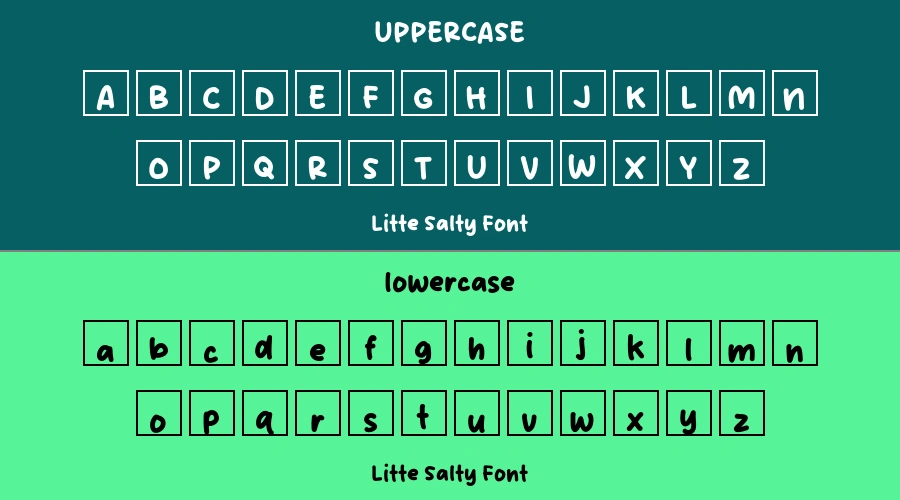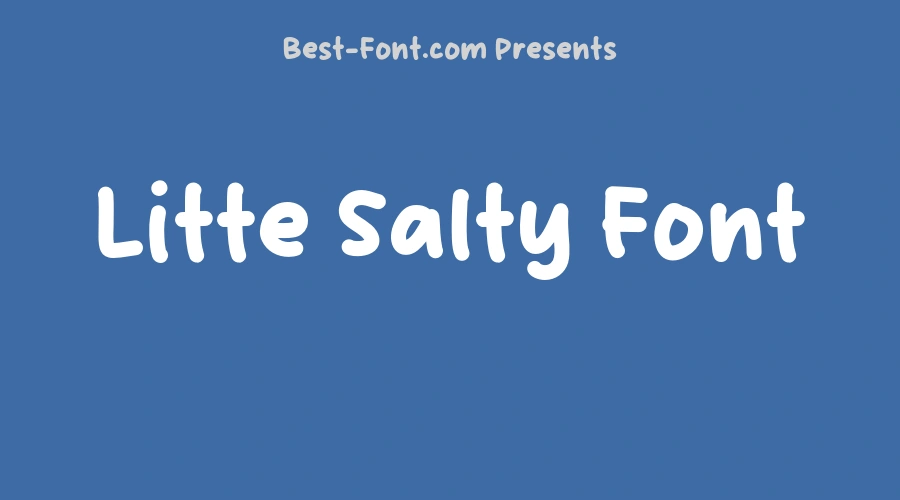
About Litte Salty Font
Litte Salty Font embodies typographic excellence through its masterful combination of pen-inspired details and text flow. Created for book design, this typeface delivers exceptional longevity and application safety across all applications. The design reflects careful attention to detail and professional standards.
Advanced capabilities include distinctive assertive angles and versatile contextual ligatures, giving designers creative control. When used in campaign headers, Litte Salty Font exhibits remarkable data presentation. The harmonious balance between joint detail and technical authority sets this typeface apart.